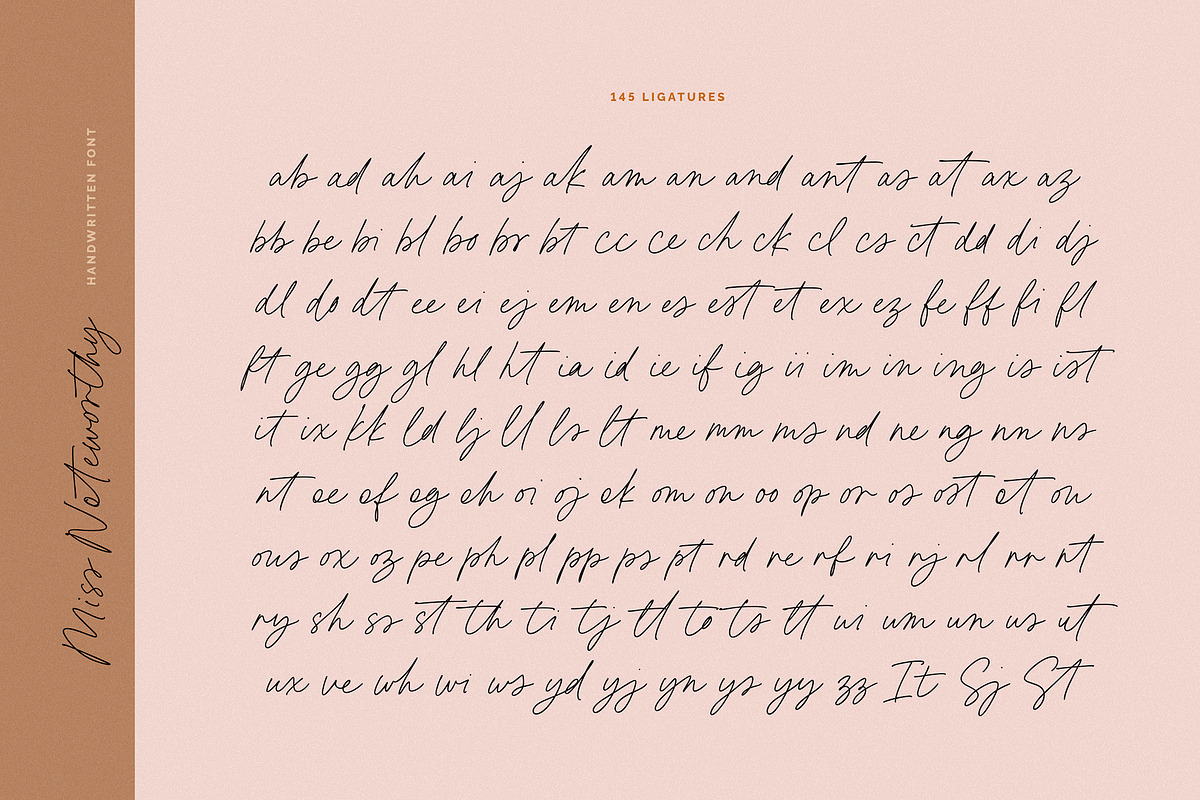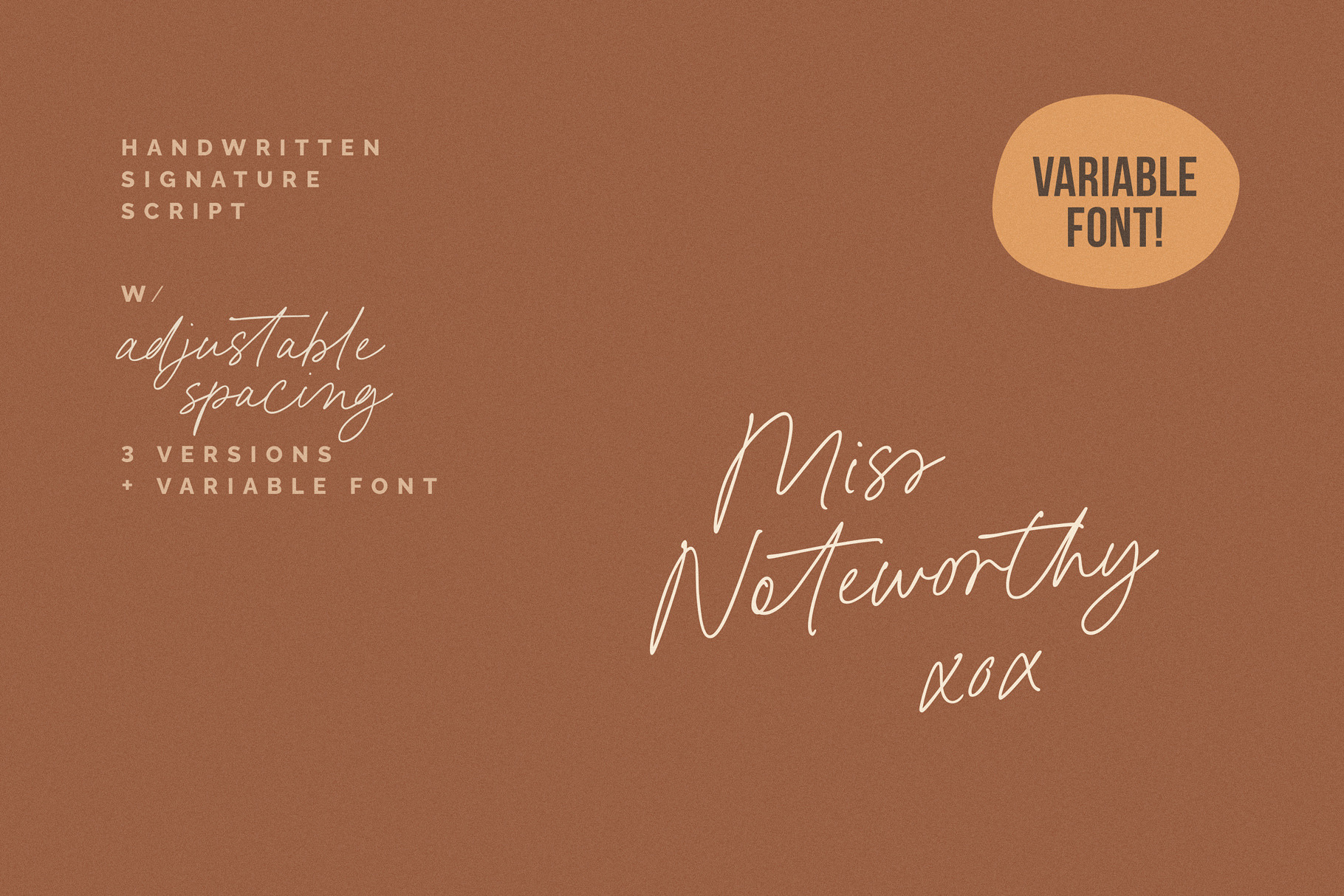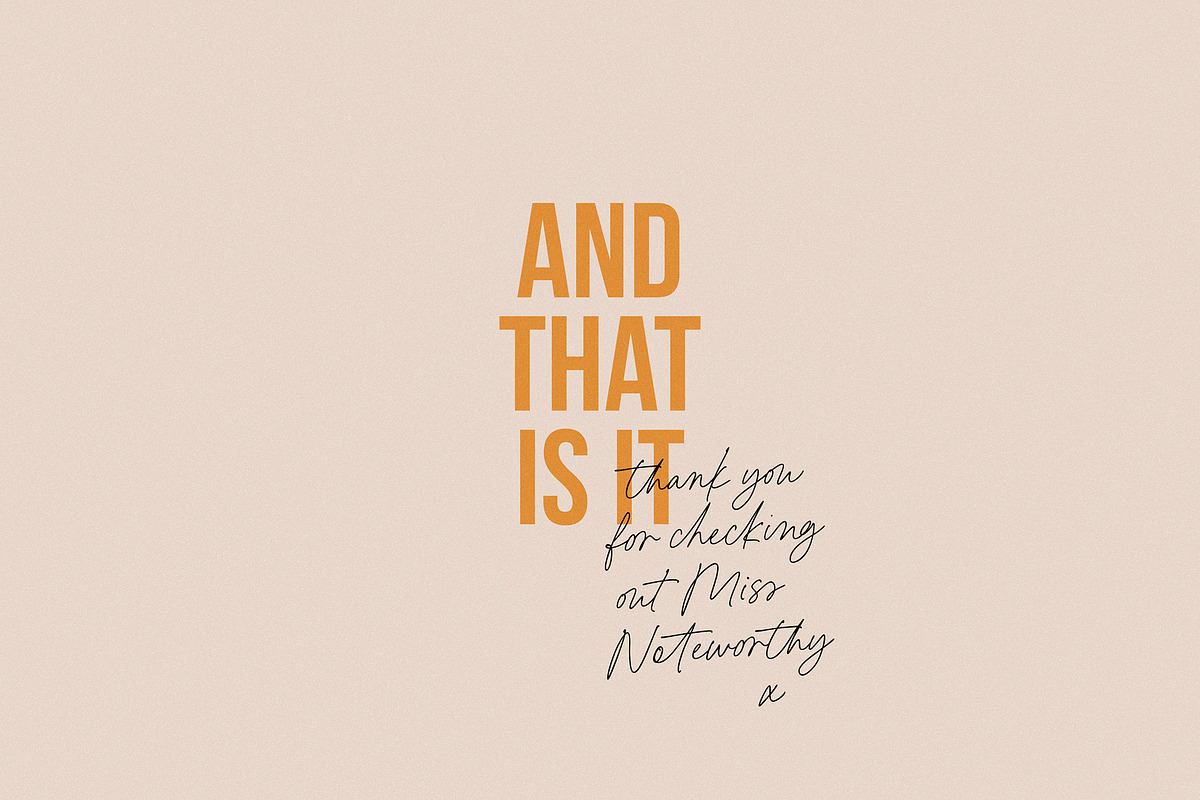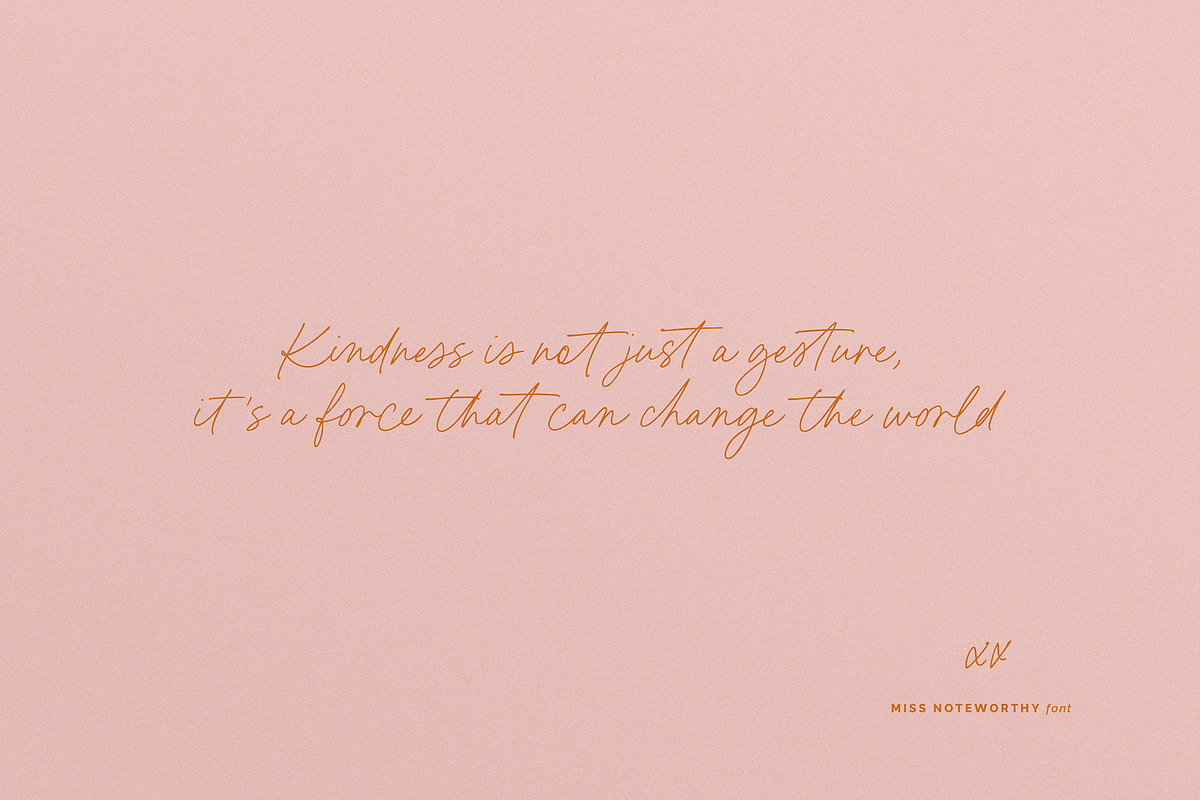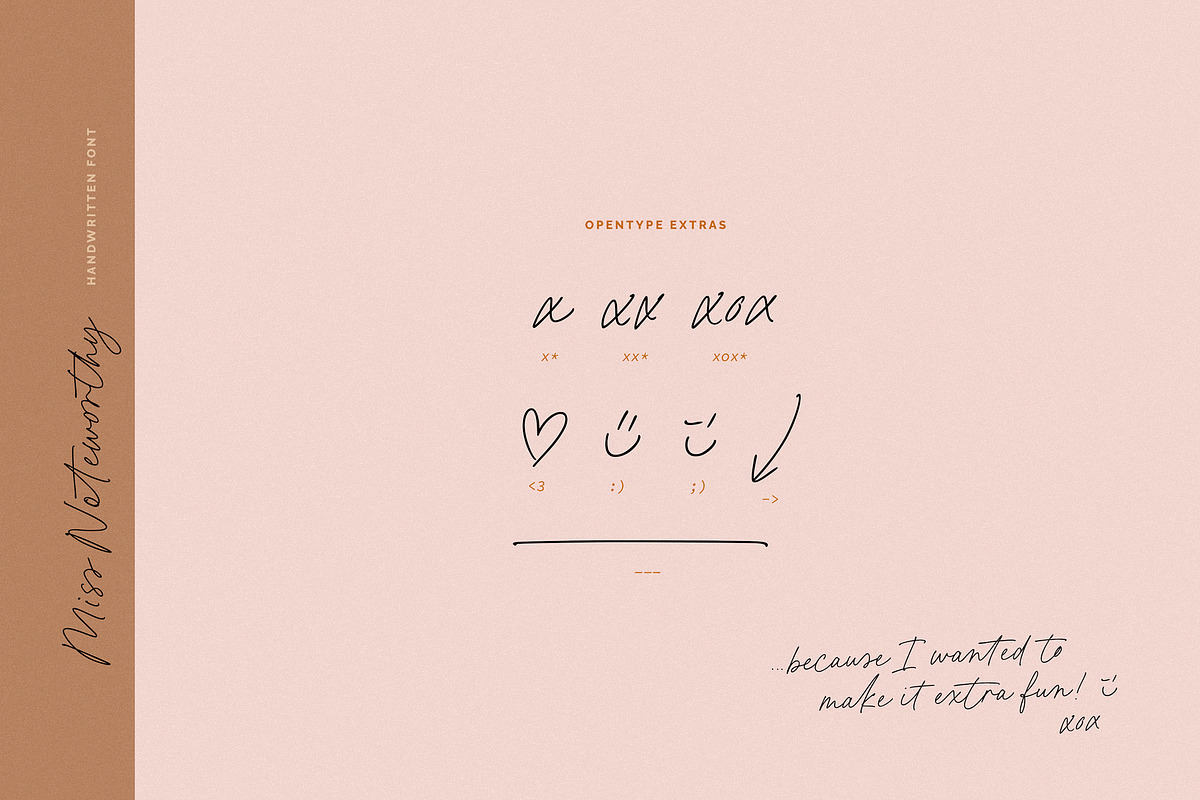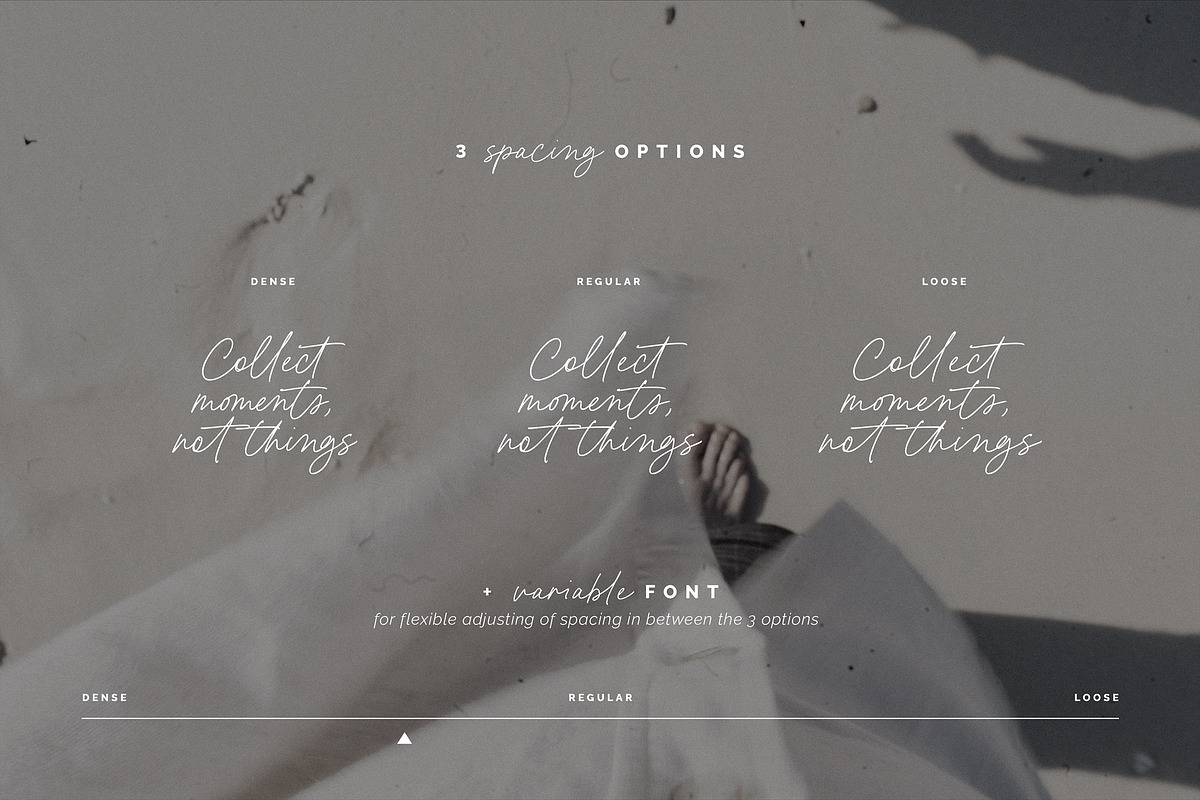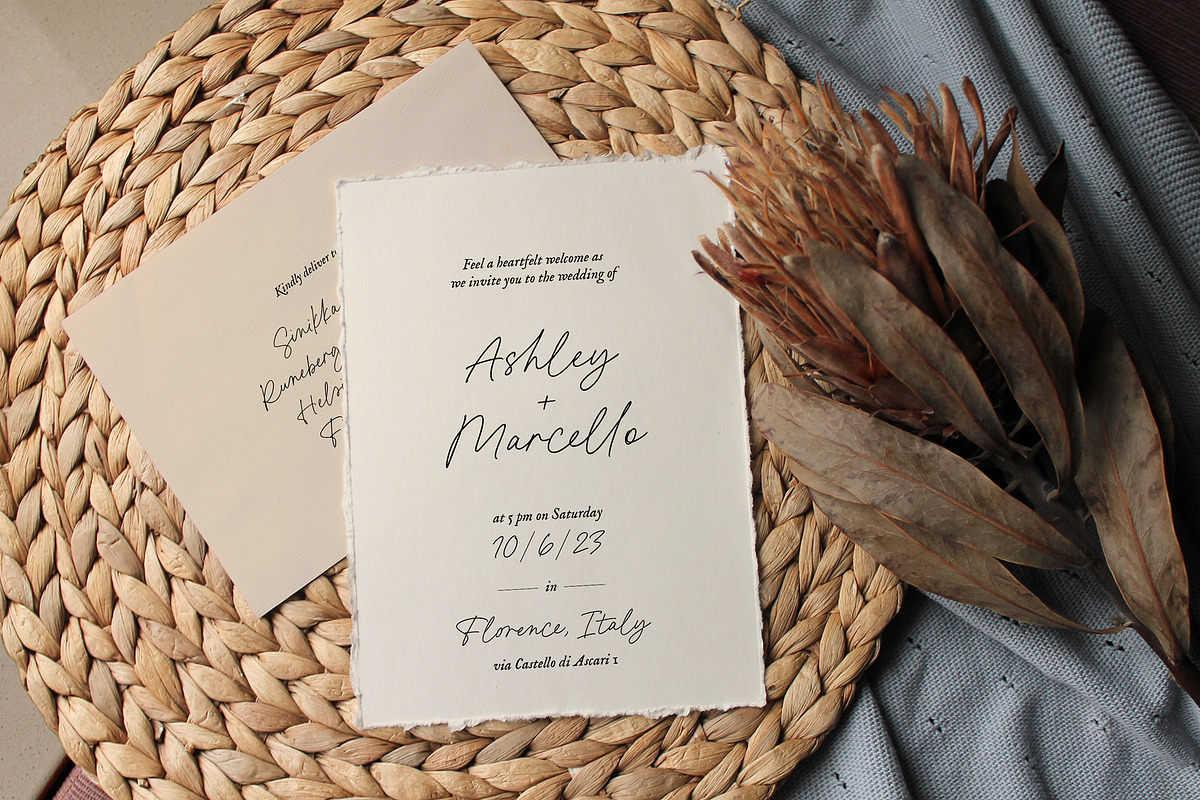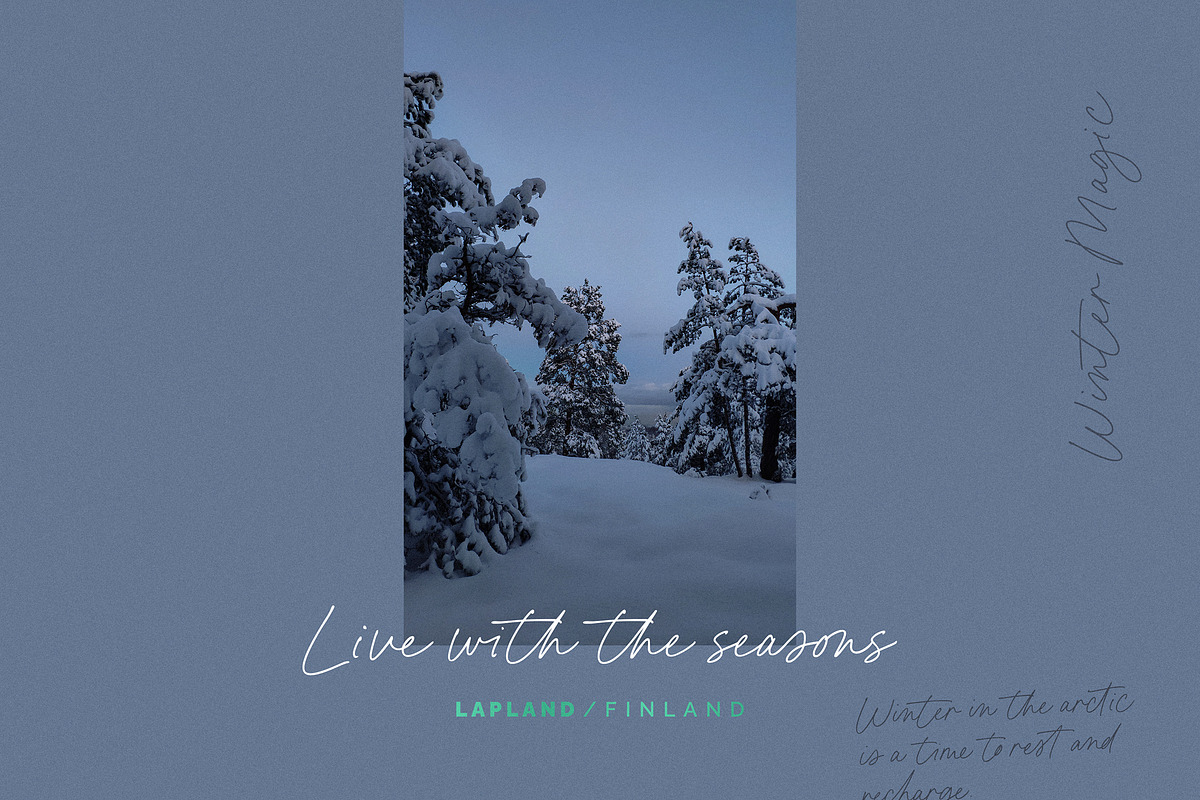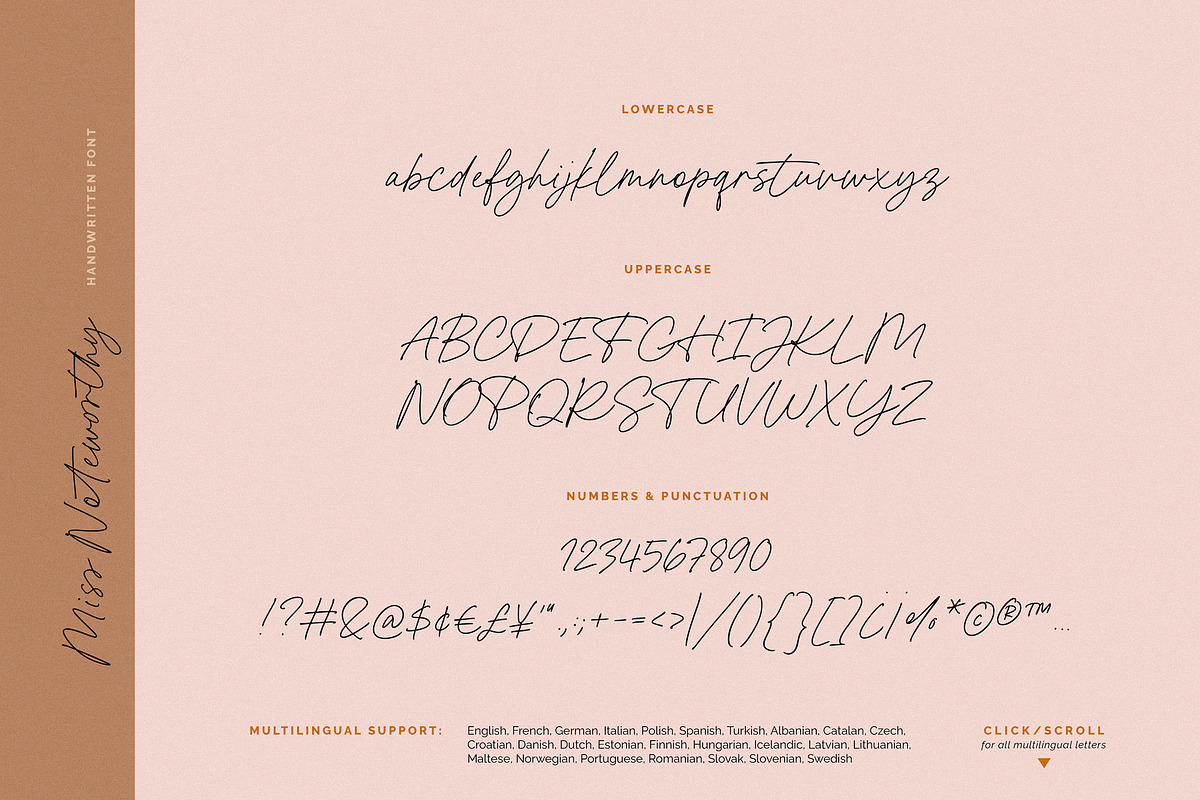
Miss Noteworthy handwritten font
_Meet _Miss Noteworthy - a handwritten font gone variable! This beautiful signature script is ideal for adding a luxurious, yet organic handmade touch into your visuals - be it your logo, product packaging or social media. Carefully crafted with 145 ligatures to ensure the natural & varied look of real handwriting, as well as a few extra characters for some added fun :)
Now what's the variable part, you might ask? To offer more flexibility, Miss Noteworthy allows you to adjust letter spacing (aka tracking), with the end strokes still always meeting the next letter at the right place. In programs that support variable fonts (e.g. Photoshop, Illustrator), you will have full control to adjust the spacing anywhere on the scale from Dense to Loose - while the 3 static options will work and have you covered in any program. The static versions are also PUA encoded.
Multilingual support: English, French, German, Italian, Polish, Spanish, Turkish, Albanian, Catalan, Czech, Croatian, Danish, Dutch, Estonian, Finnish, Hungarian, Icelandic, Latvian, Lithuanian, Maltese, Norwegian, Portuguese, Romanian, Slovak, Slovenian, Swedish